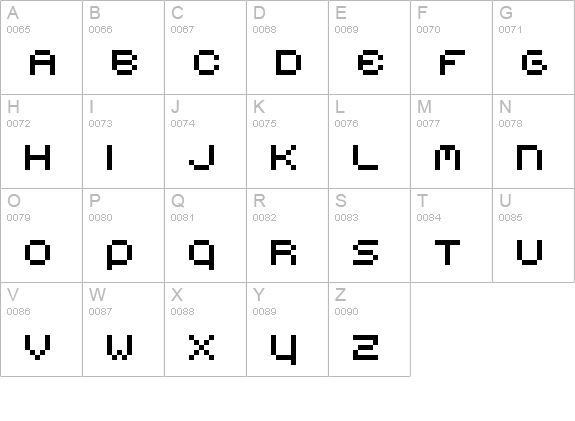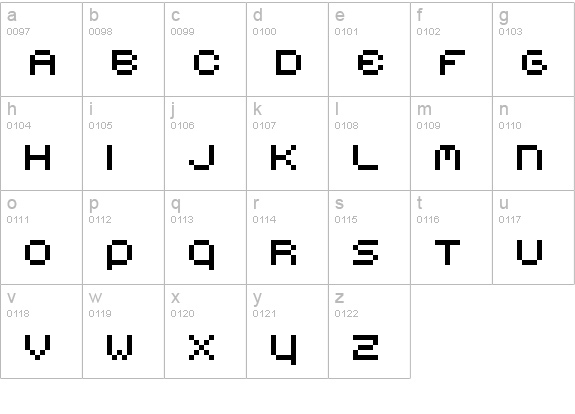
fontline6_2 Font Details
Introducing fontline6_2, a stylish and versatile font that is sure to make a statement in your design projects. This font embodies a perfect balance of elegance and modernity, making it ideal for a wide range of applications. With its sleek lines and contemporary appeal, fontline6_2 is the perfect choice for branding, advertising, and more. The best part? fontline6_2 is completely free to download at FontsMarket.com. Whether you're a seasoned designer looking to add a fresh touch to your work or a newcomer eager to explore the world of typography, this font is a must-have in your collection. Don't miss out on the opportunity to enhance your designs with the unique charm of fontline6_2. Download it today and let your creativity shine!